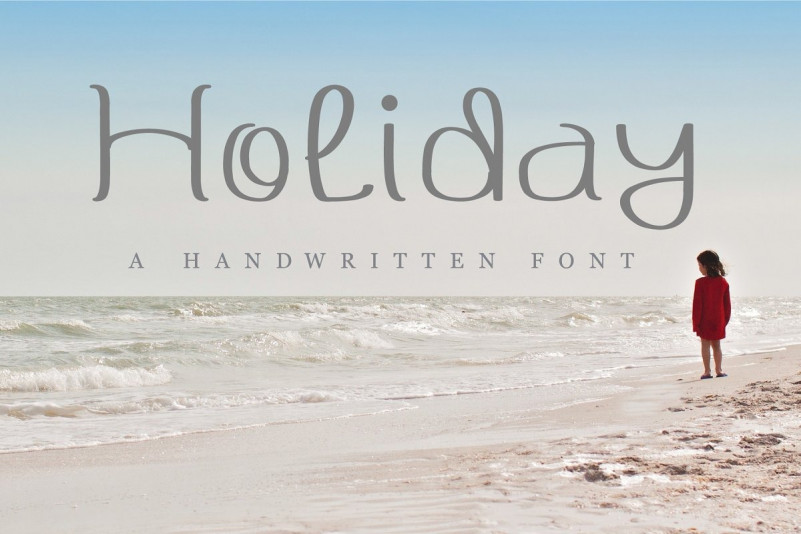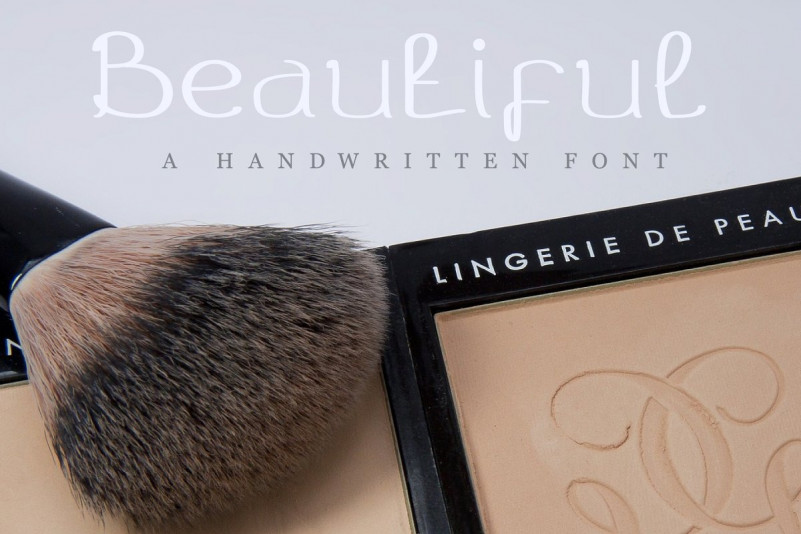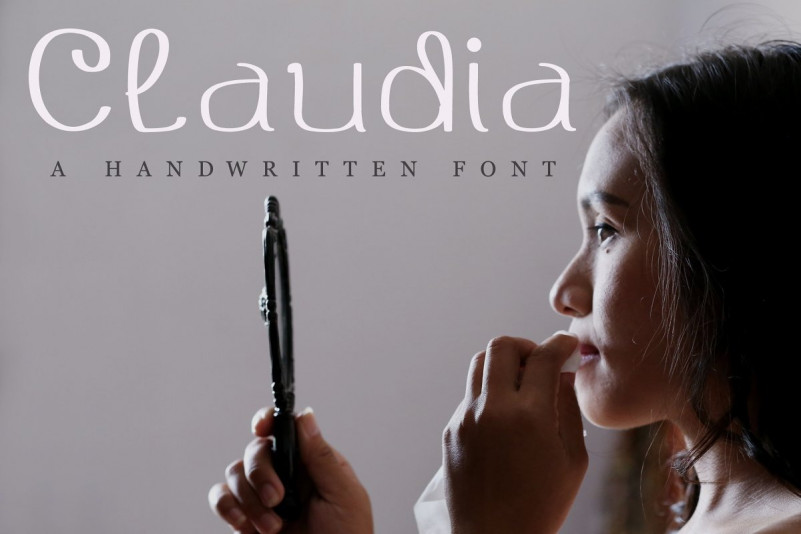
Claudia Script Font
Claudia Beauty Handwritten Font. Set of multicolored bright letters for inscriptions and your design. Vector illustration. Isolated on white background.